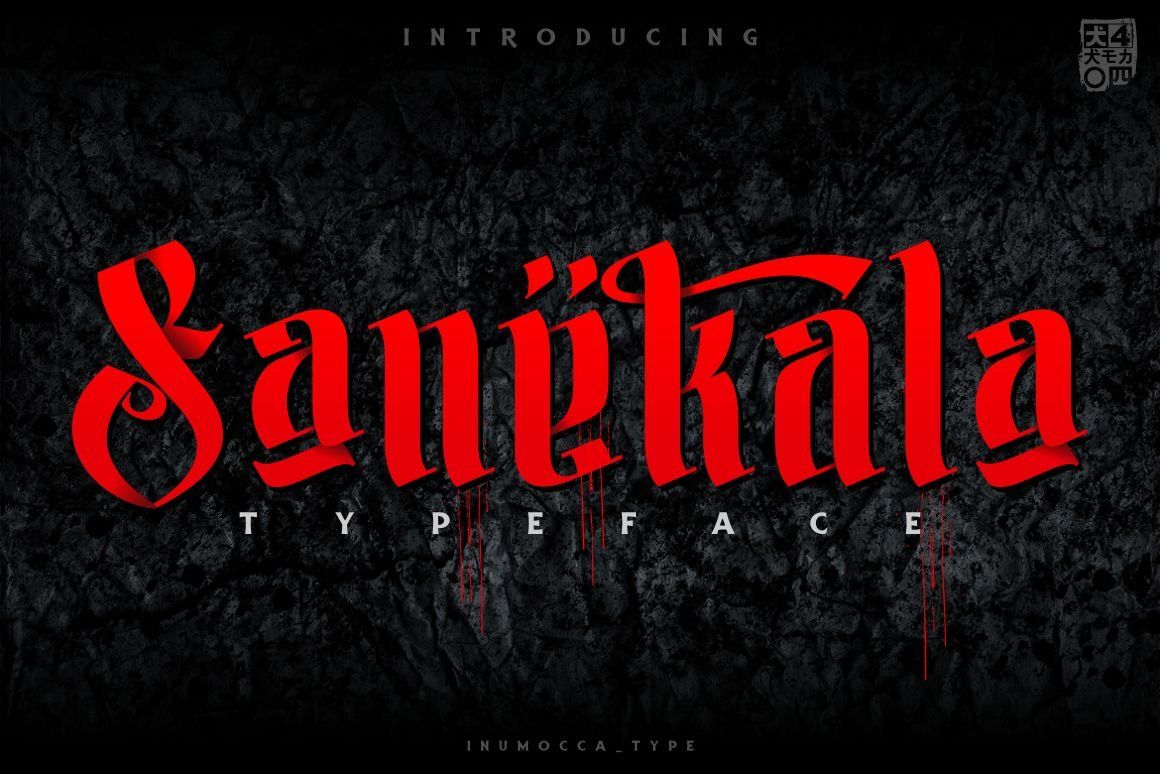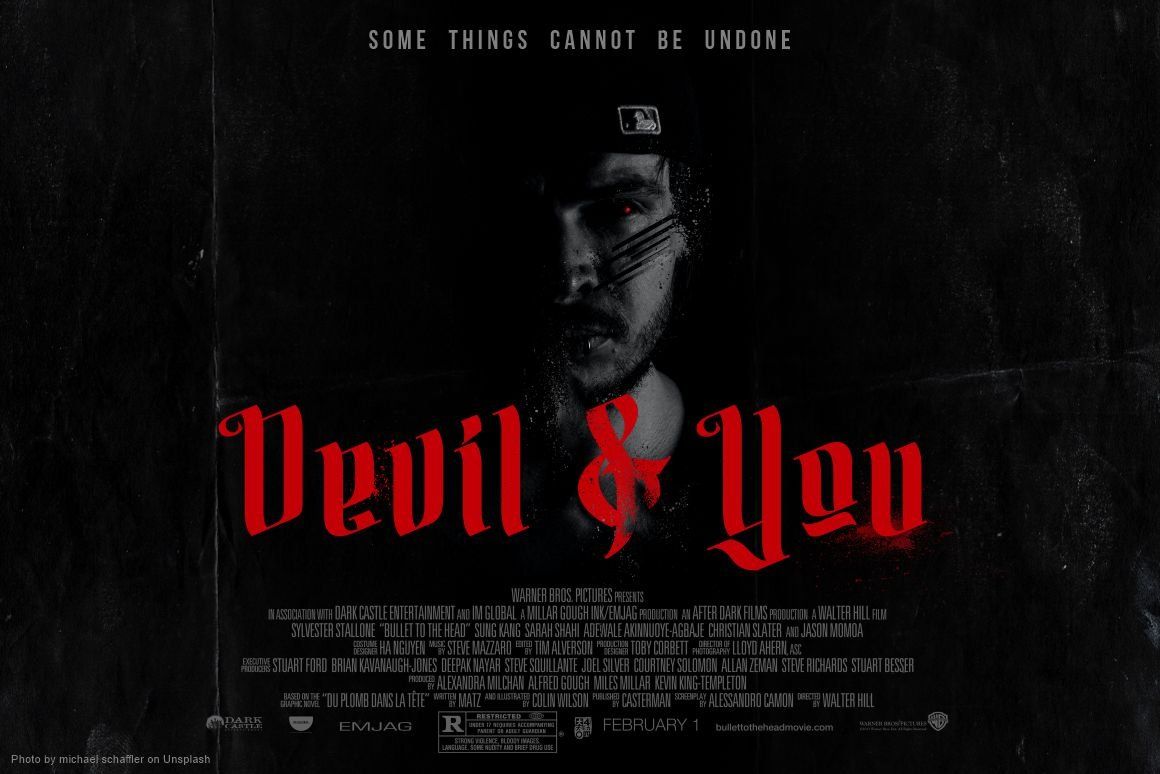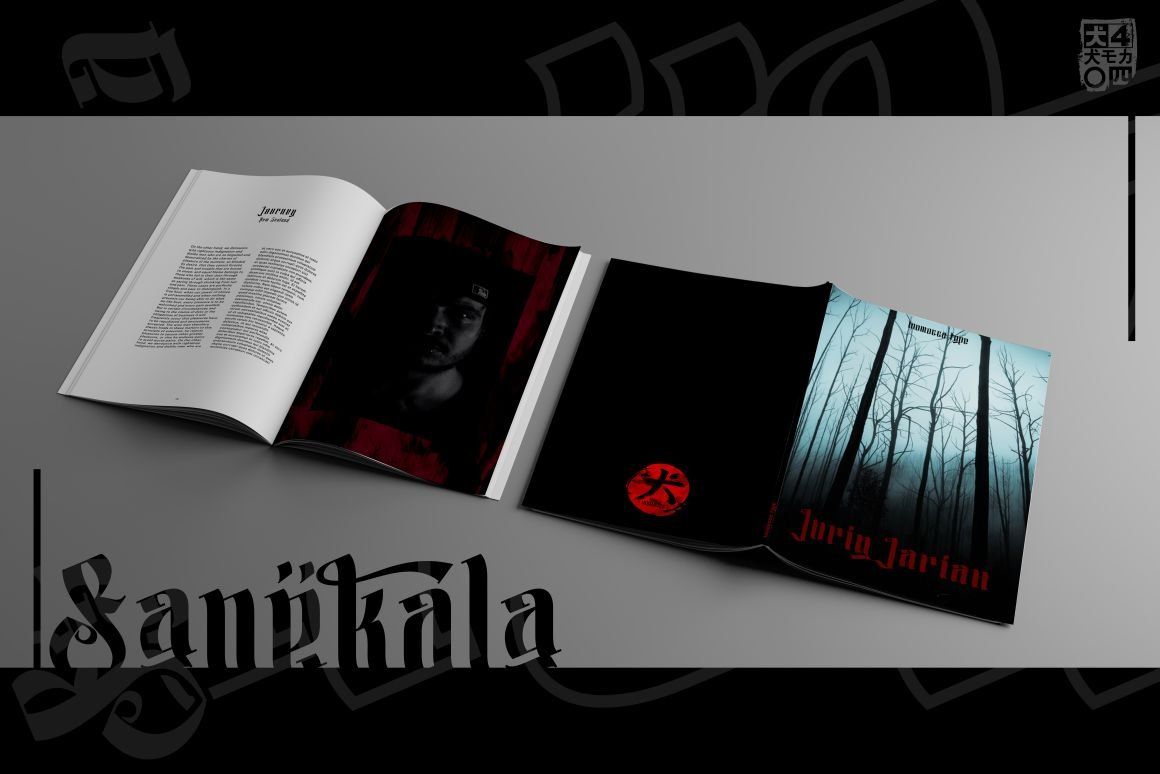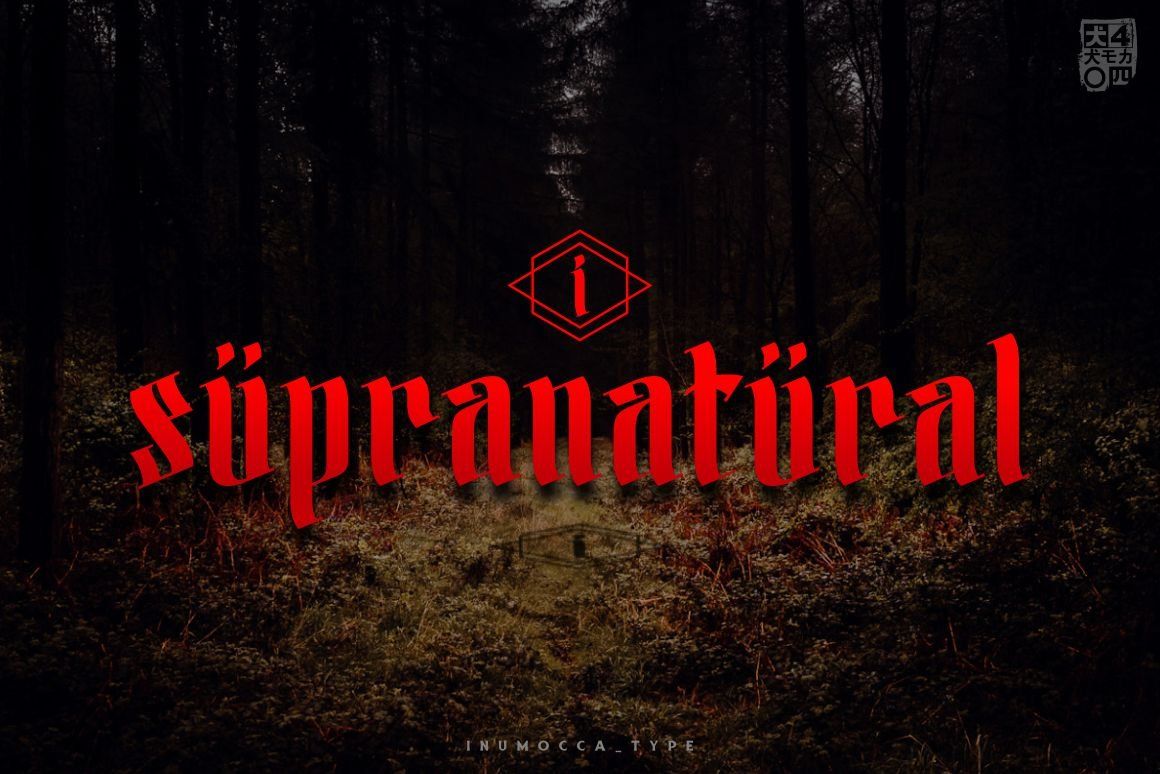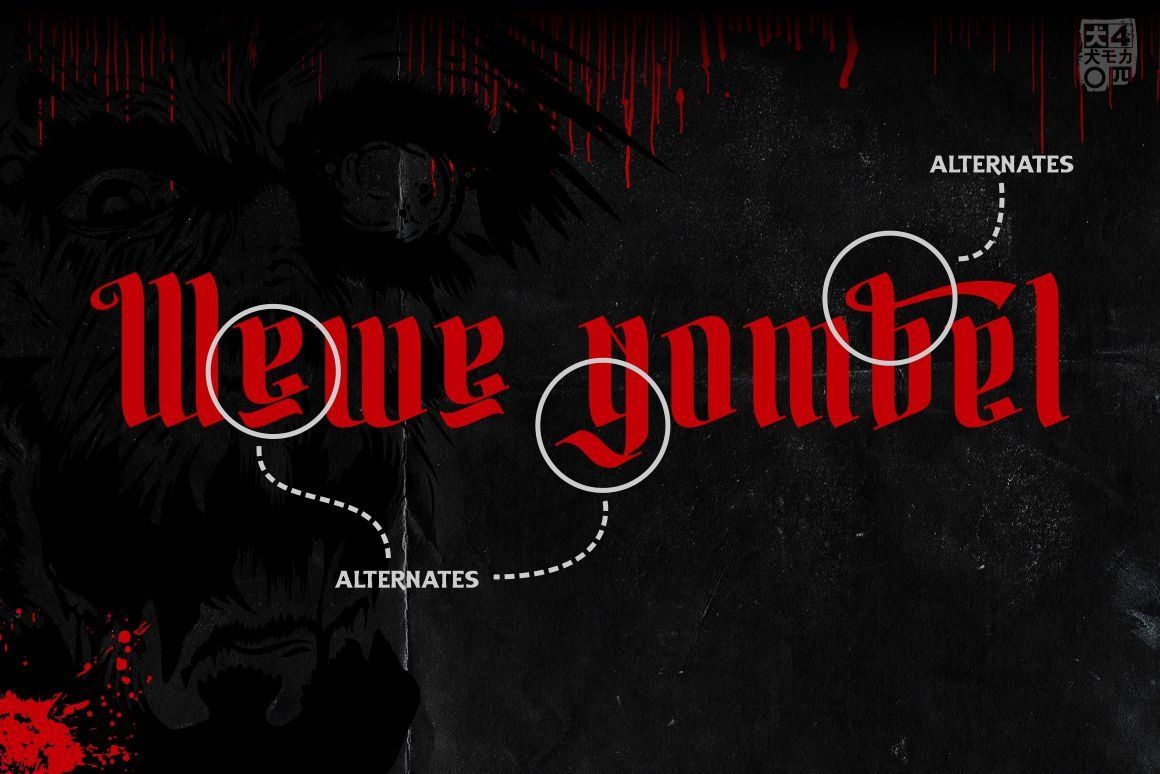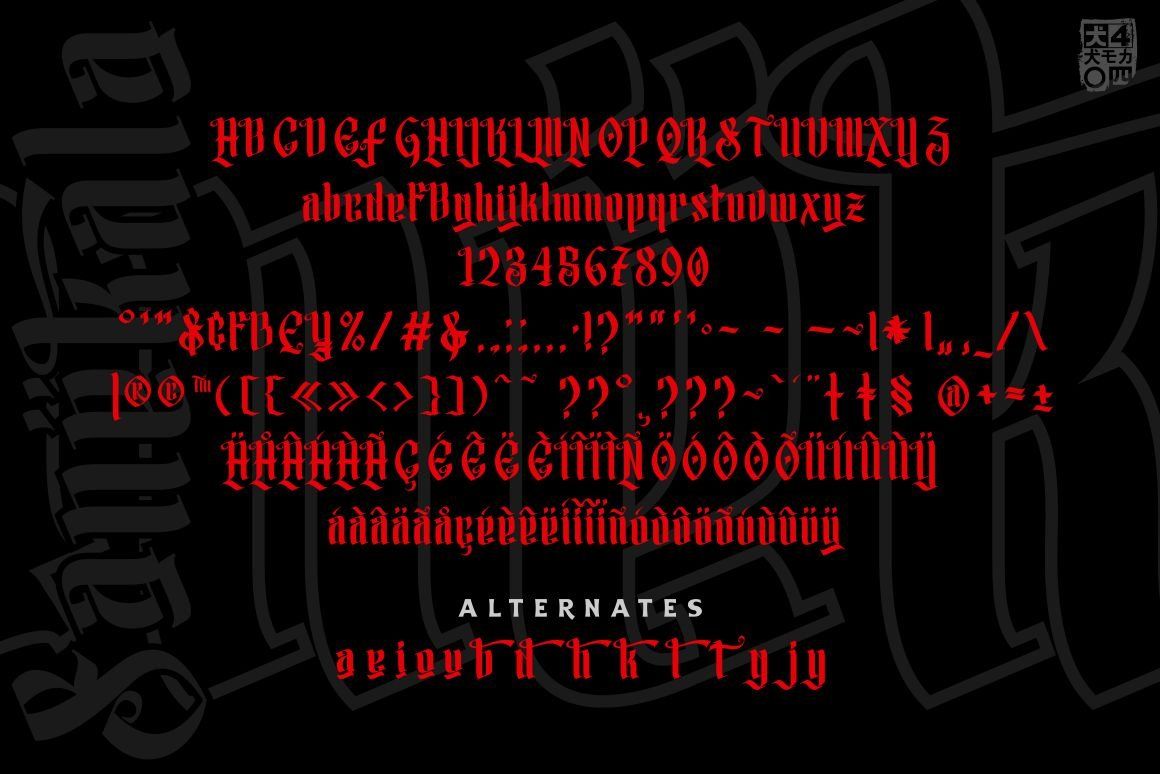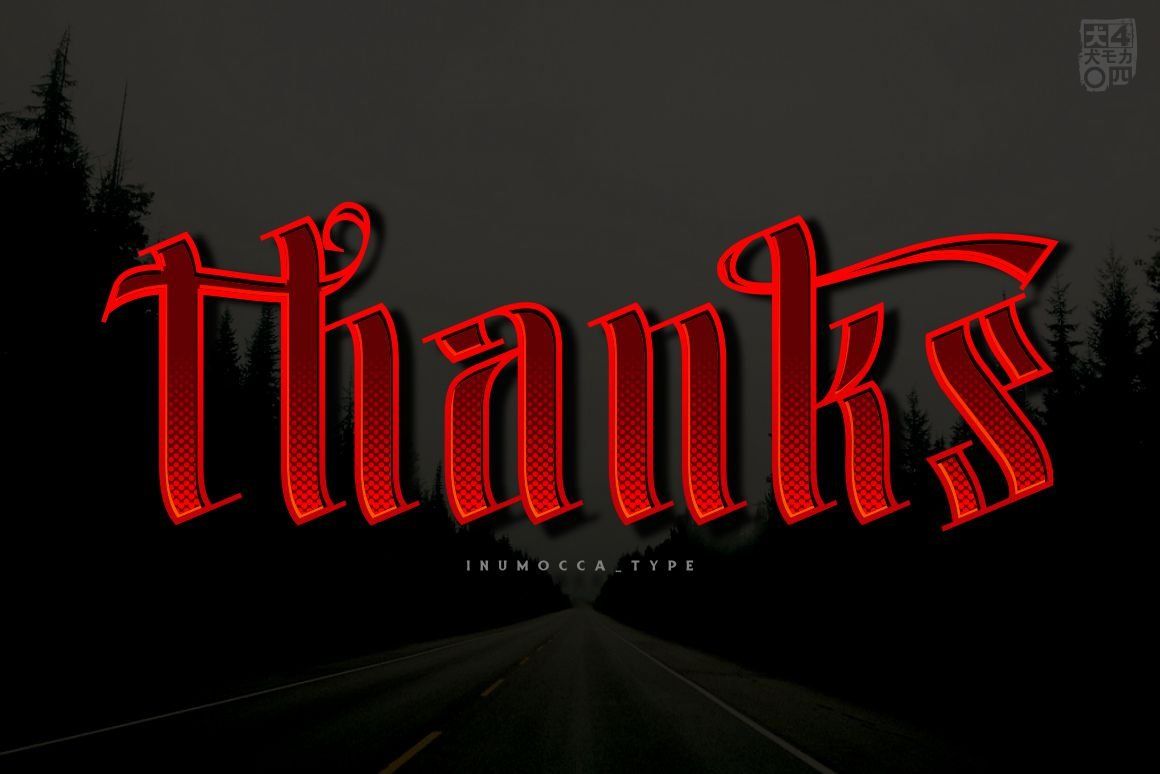
Sanekala Typeface
Sanekala Typeface its blackletter style with some touch some story behind the Name and character Sanekala sundanese language, Sanekala From "Sane" (Sanes {indonesia bahasa} is "not"), and "Kala" (Waktu {indonesia bahasa} is "Time"). Sanekala/ Not the Time, but it is very closely connected to the world of demons, like devils are predators of children. powerfull but also very calm the glyphs. really very flexible for others atmosphere, for personal project, or propesional project i think great for poster work, movie poster, book, tshirt, logos, band name, brands and others.
Sanekala Typeface include
• Unique glyphs
• Multilingual Characters
• UPPERCASE
• Lowercase
• Numeric
• Symbol
• Punctuation Character
• Alternates